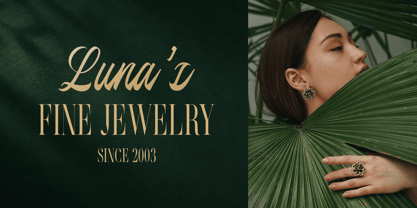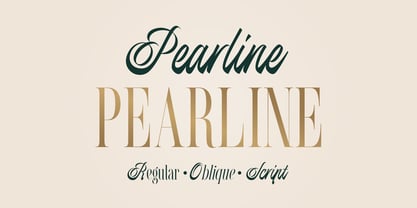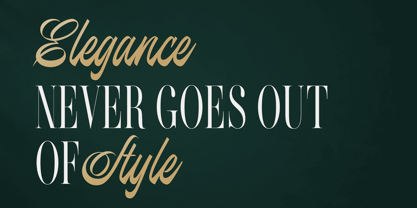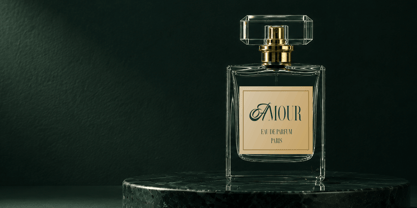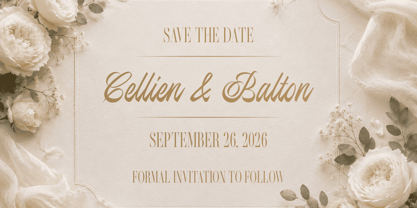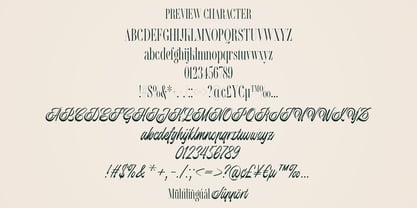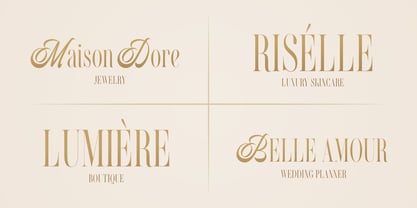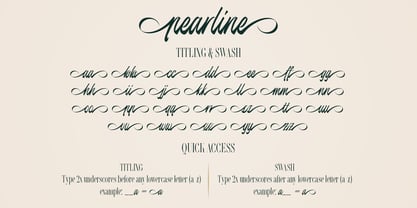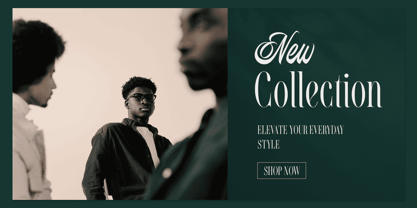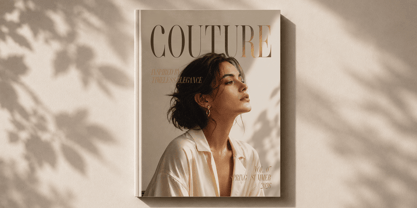
Pearline
by Lemonthe
The Pearline Font Family was designed by Dwi Ahidian and published by Lemonthe. Pearline contains 3 styles and family package options. More about this family
Pearline is an elegant font duo that combines a refined high-contrast serif with a flowing calligraphy script, blending classic elegance with modern sophistication. Designed for luxury branding, fashion editorials, wedding invitations, jewelry branding, cosmetics, perfume packaging, logos, magazines, premium stationery, and social media, Pearline is suitable for a wide range of creative applications. With multilingual support, PUA encoding, and beautifully crafted swash and titling features, it provides everything you need to create polished and distinctive typography.
Titling: Type two underscores (__) before any lowercase letter (a–z).
Example: __a
Swash: Type two underscores (__) after any lowercase letter (a–z).
Example: a__
Designers: Dwi Ahidian
Foundry: Lemonthe